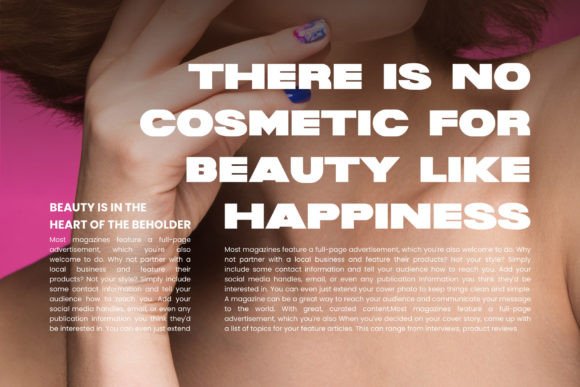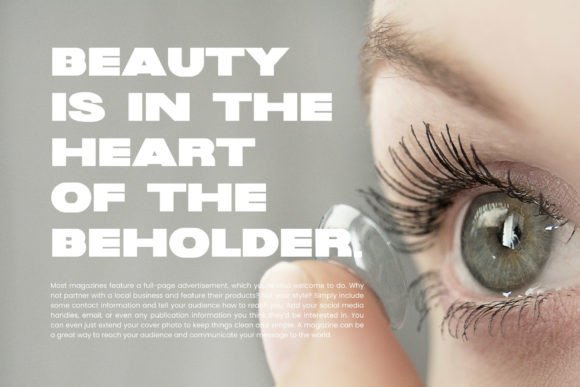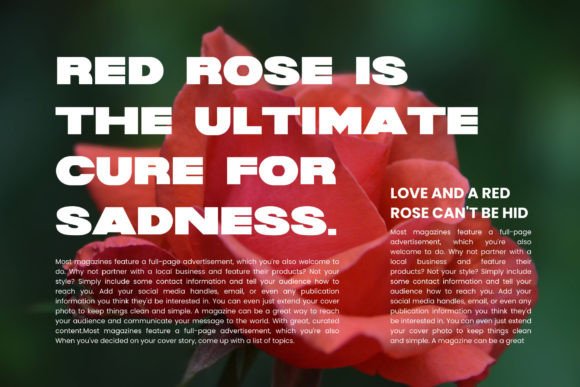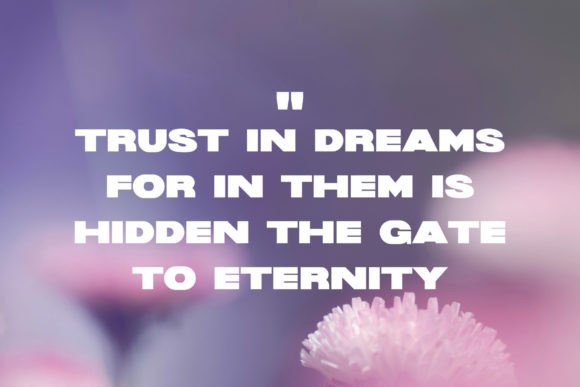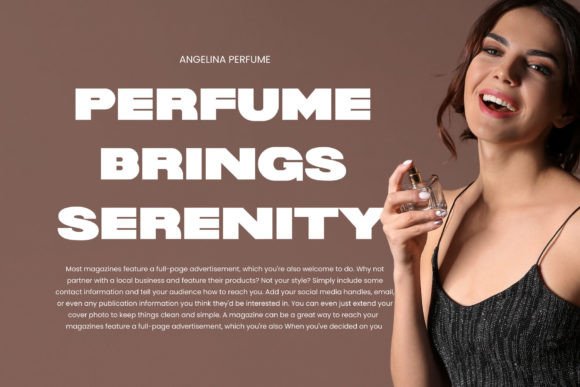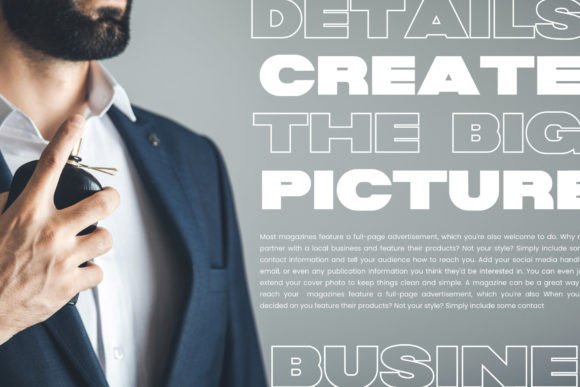
The Birth of a Timeless Design
Have you ever been stuck in a creative rut, staring blankly at your computer screen, desperate for that spark of inspiration to ignite your next project? You know, that moment when everything clicks into place and your design begins to take shape? For designers, those moments are what make all the hard work worth it.
Enter Evers Font, a sleek and sophisticated typeface designed specifically for the modern designer. With its minimalist aesthetic, Evers Font is perfect for creating visually stunning templates, brochures, videos, and advertising branding that exudes elegance and sophistication. Whether you’re working on a high-end logo or a beautiful invitation, Evers Font is the perfect companion to help bring your vision to life.
For designers, Evers Font is a valuable asset that can elevate any project to new heights. Its versatility and timeless design make it a go-to choice for crafting stunning layouts, beauty designs, and more. With Evers Font, you can trust that your designs will always be on point, and that’s a creative freedom like no other.
Evers Font Key Features
- Character Set: The font includes a comprehensive set of characters, including Latin, Cyrillic, and Greek scripts, making it suitable for global designs.
- Unique Characteristics: Evers Font features a unique blend of modern and classic elements, with subtle flair and elegance, perfect for high-end designs.
- Font Weight: The font family includes multiple weights, from Light to Bold, providing designers with a range of options to suit their design needs.
Evers Font Review
As a designer, I’ve had the chance to work with Evers Font, and I must say it’s an interesting choice. ✨ One of the things that stands out is its unique blend of modern and vintage elements. The font’s geometric shapes and clean lines make it perfect for contemporary designs, while its subtle imperfections give it a charming, human touch.
Another thing I appreciate about Evers Font is its versatility. ✨ It works well for a wide range of projects, from logos and branding to digital products and publications. The font is also highly legible, making it a great choice for body text.
- ⚠️ Limited character set: Evers Font only comes with a basic Latin character set, which might not be suitable for projects that require a wider range of languages.
- ⚠️ Limited font sizes: While the font looks great at standard sizes, it can become blurry and difficult to read at larger sizes.
Overall, I think Evers Font is a solid choice for designers who want a unique and versatile font. While it has some limitations, its strengths make it worth considering for a wide range of projects.
Tips for Getting the Most Out of Evers Font
To get the most out of Evers Font, consider the following tips:
- Use Evers Font for titles and headings to create visual hierarchy.
- Experiment with different font sizes and colors to create contrast and emphasis.
- Combine Evers Font with other fonts to create a unique and visually appealing design.
Evers Font is commonly used for:
- Designing posters and flyers.
- Creating social media graphics and ads.
- Developing